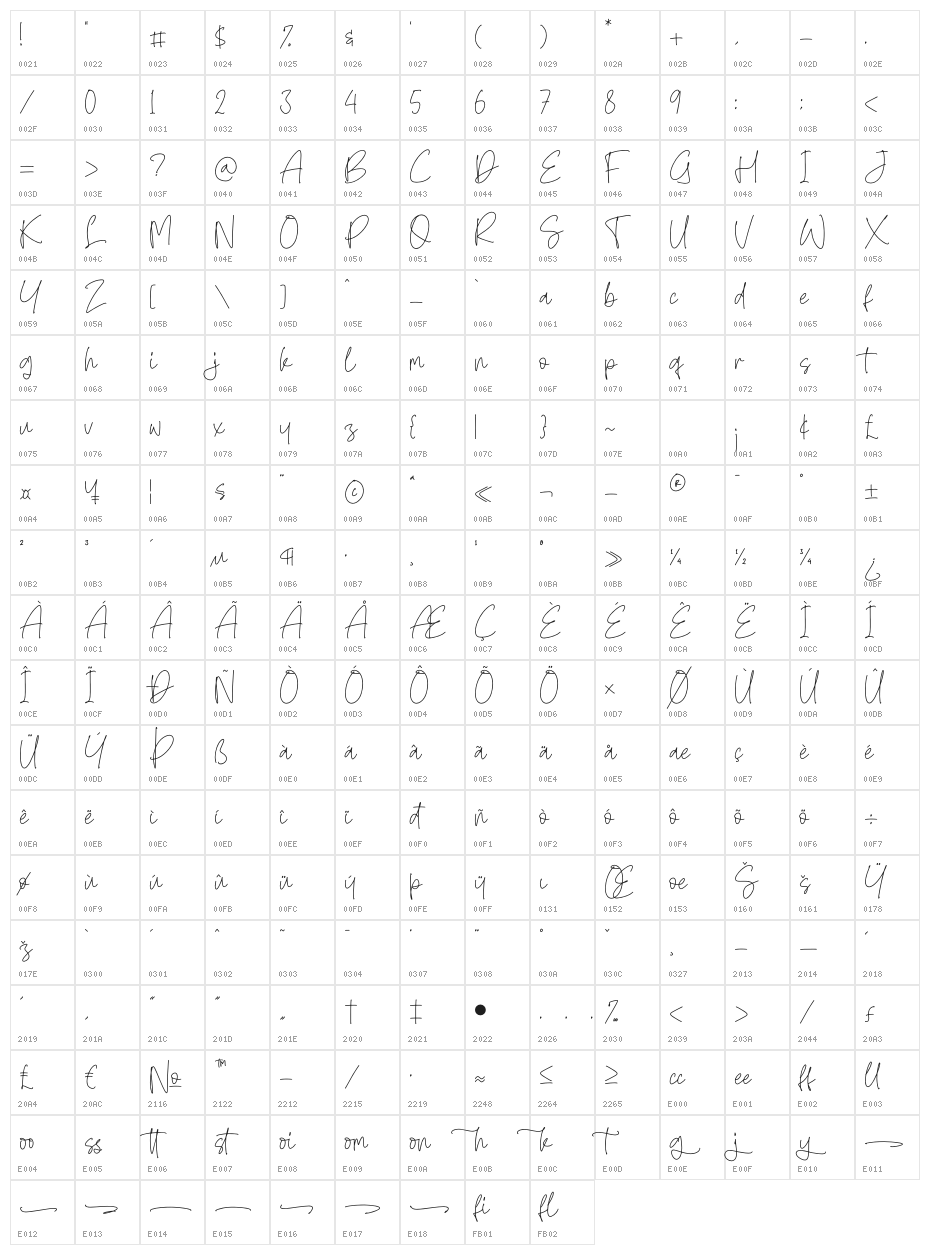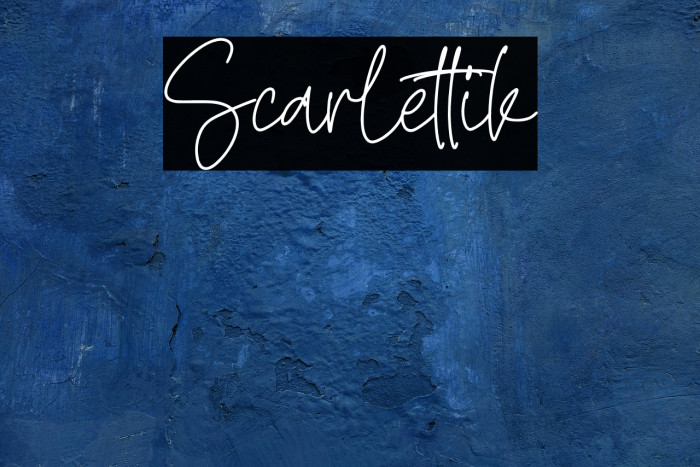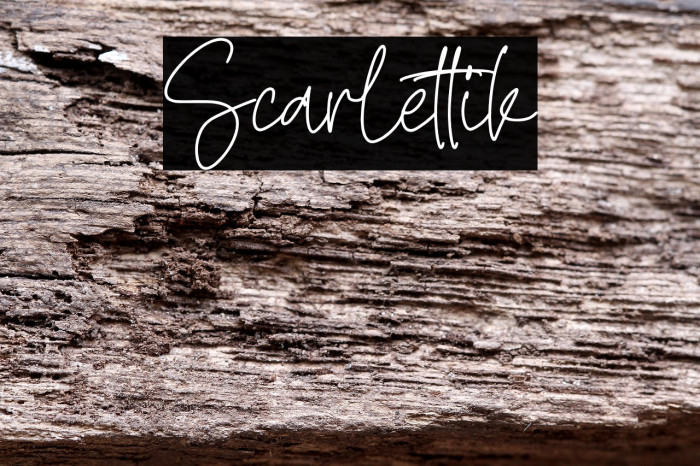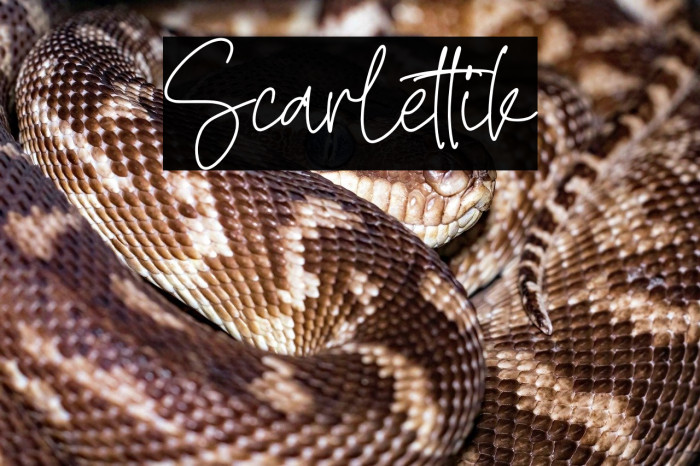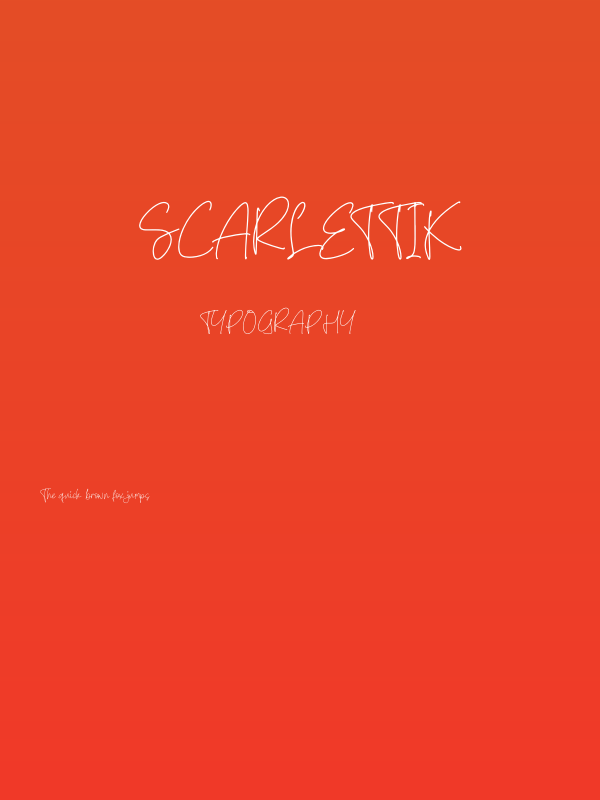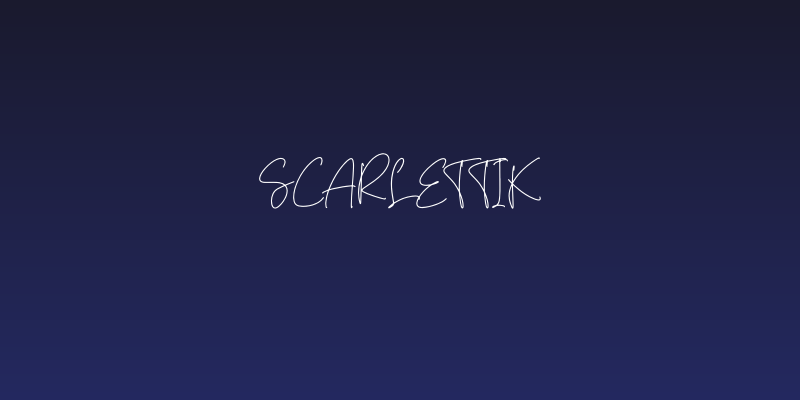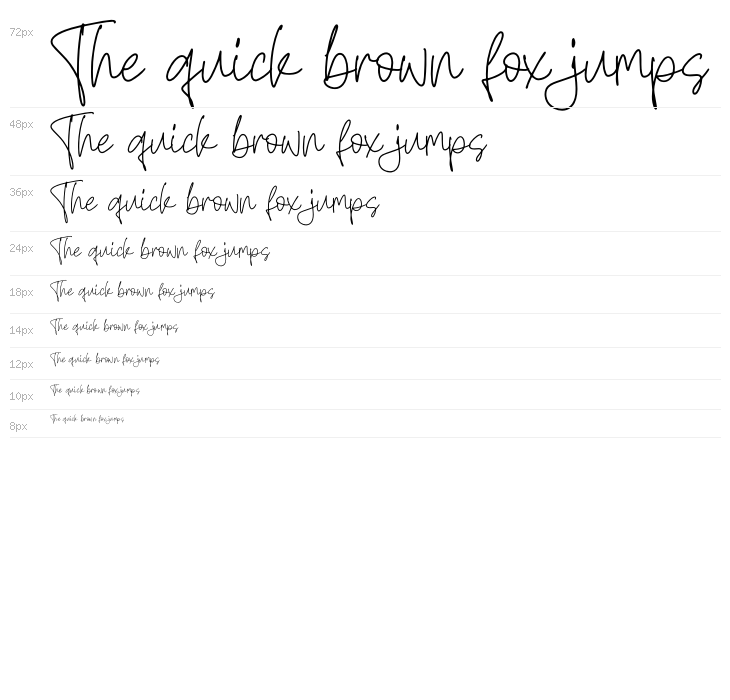
Scarlettik Font
Scarlettik Description
A casual, handwritten font with a playful and informal style, featuring irregular strokes and a natural flow.
| Use Case | Greeting cards, Personal notes |
| Proposed Projects | Greeting cards, personal notes, informal branding. |